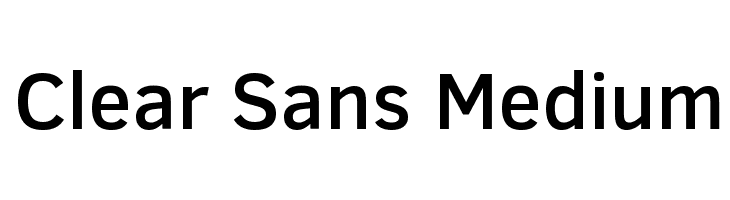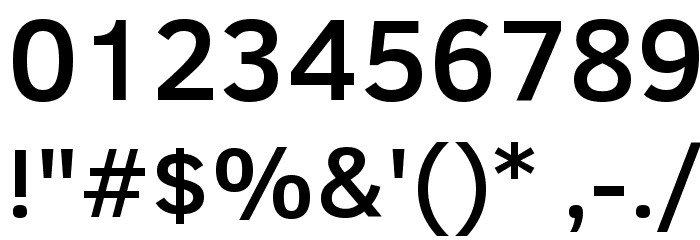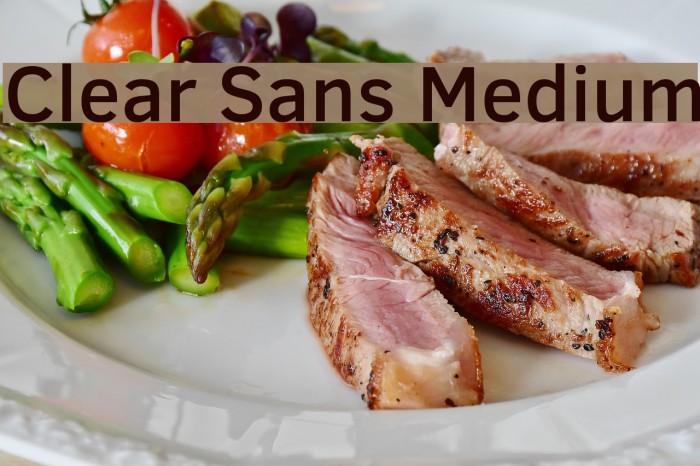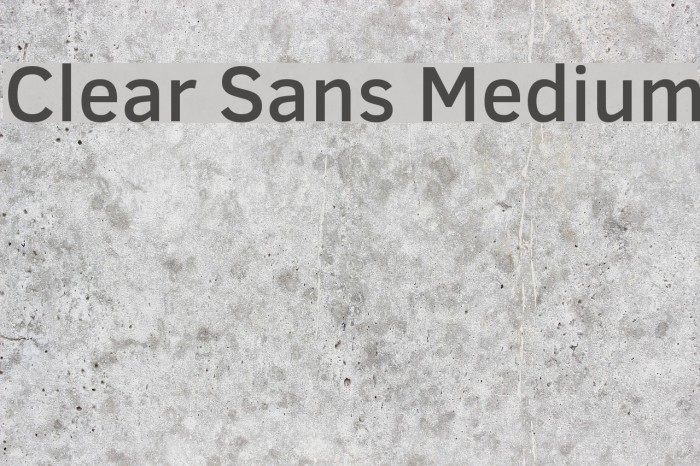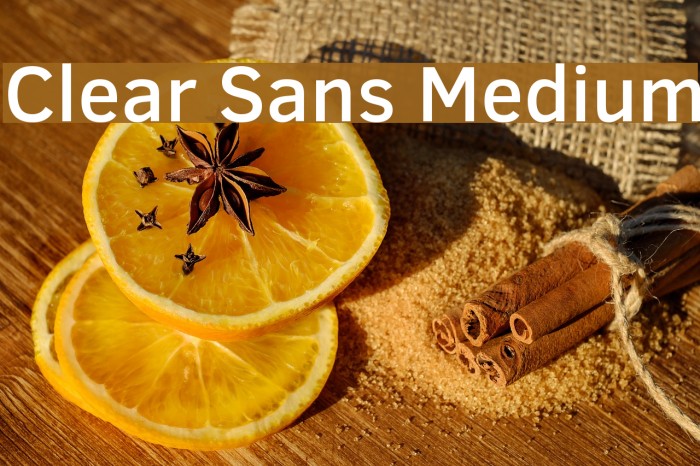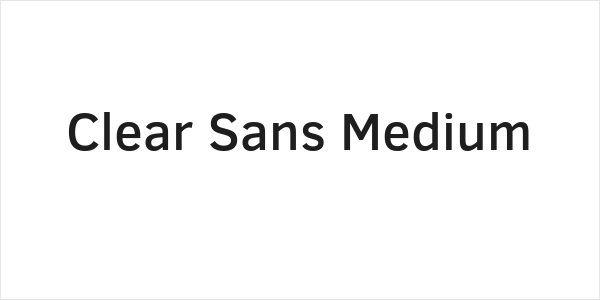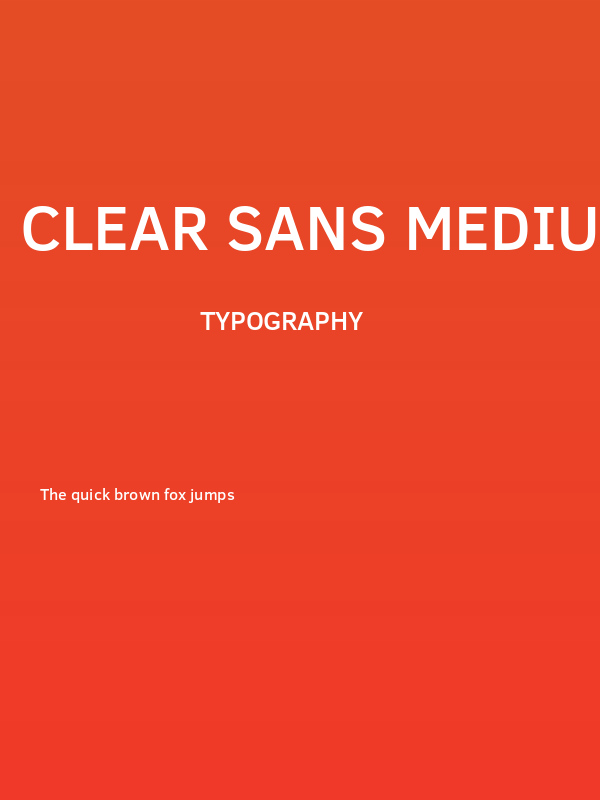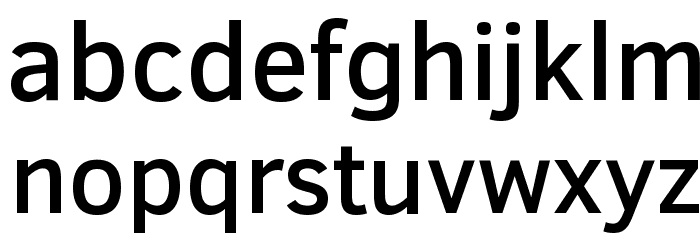
Clear Sans Medium Font
Clear Sans Medium Description
This typeface is a clean, modern sans-serif font characterized by its clarity and readability. The letters are well-proportioned with a consistent stroke width, making it suitable for both digital and print media. The uppercase letters are bold and assertive, while the lowercase letters maintain a friendly and approachable appearance. The numerals are clear and distinct, ensuring easy readability. Special characters are well-designed, maintaining the overall aesthetic of the font. Its simplicity and versatility make it an excellent choice for a wide range of applications.
| Proposed Projects | Ideal for web design, corporate branding, user interfaces, and print media. |